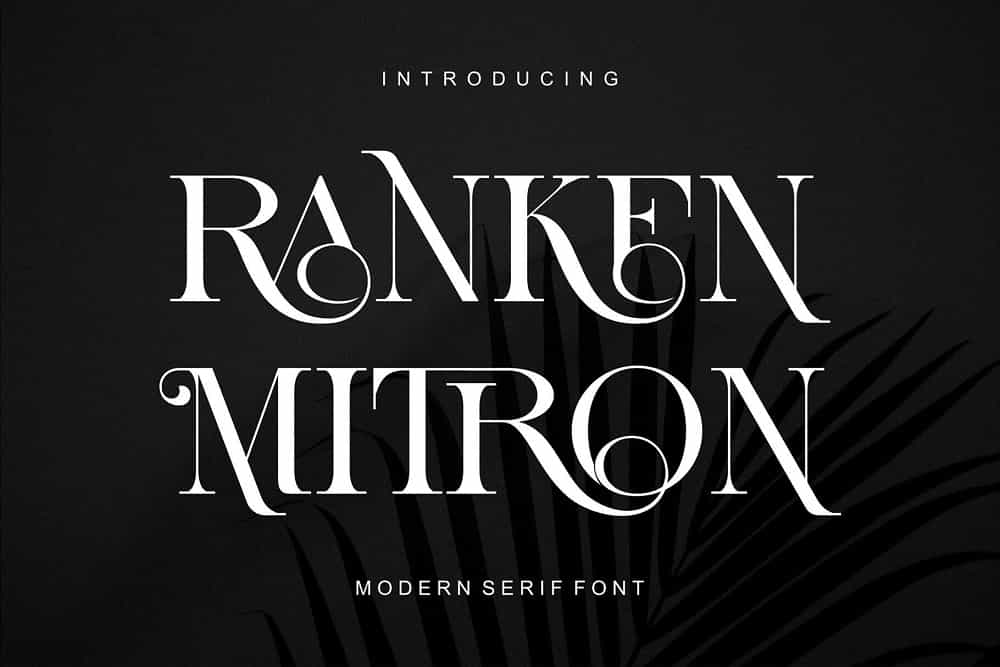
Ranken Mitron is a contemporary ligature serif font derived from a simple sleek logo applicable for the creation of templates, flyers, videos, advertisements, brand logos, invitations, website layouts, graphic design, luxurious design, beauty design and many more.